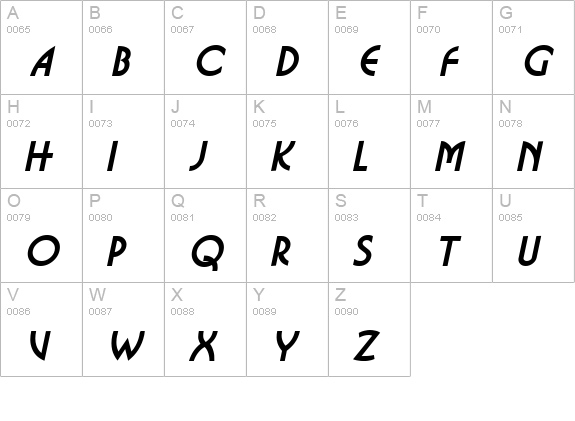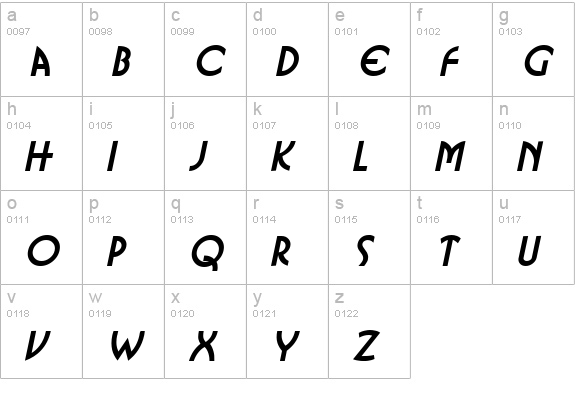
Busso-Extended Italic Font Details
Busso-Extended Italic is a distinctive, extended-width, italic variant in the Busso typeface family \xE2\x80\x94 well suited to design and typography projects.
Introducing Busso-Extended Italic font, a sleek and sophisticated typeface that exudes elegance and modernity. Its unique italicized design adds a touch of flair to any text, making it perfect for branding, editorial design, and more. The elongated letterforms of Busso-Extended Italic give off a sense of movement and dynamism, capturing the eye and drawing the reader in. What sets Busso-Extended Italic apart is that it is not only visually stunning, but also versatile and practical. Whether used for headlines, body text, or graphic elements, this font remains highly legible and impactful. Its refined curves and balanced spacing contribute to a harmonious overall appearance that is both professional and engaging. And the best part? Busso-Extended Italic font is available for free download at FontsMarket.com! Now you can elevate your designs with this exceptional typeface without breaking the bank. Don't miss out on the opportunity to add Busso-Extended Italic to your font collection and bring a touch of sophistication to your projects. Download it today and let your creativity soar.